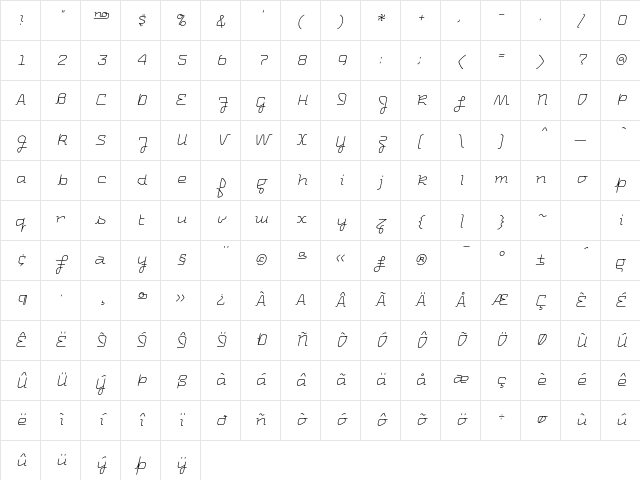
Uniglow TwentyFiveCursive Free Font
Uniglow TwentyFiveCursive
Style: TwentyFiveCursive
Design Context for Uniglow
Uniglow flows with the natural rhythm of handwritten lettering, making it ideal for designs that call for warmth and personal expression.
Font Pairing: Combine Uniglow with a simple geometric sans for maximum contrast - the tension between flowing curves and clean structure is a classic typographic pairing.
Pro Tip: Use Uniglow for short runs of text - names, titles, or taglines. Extended body copy in script faces tires the eye quickly.